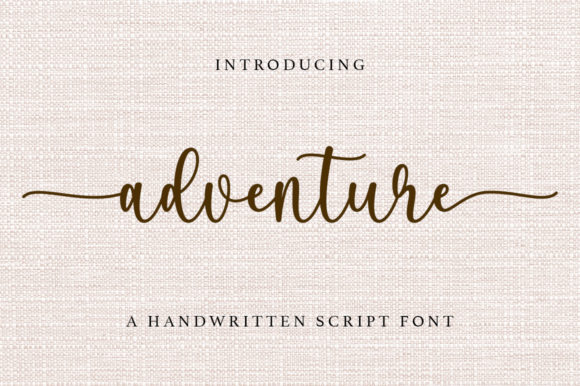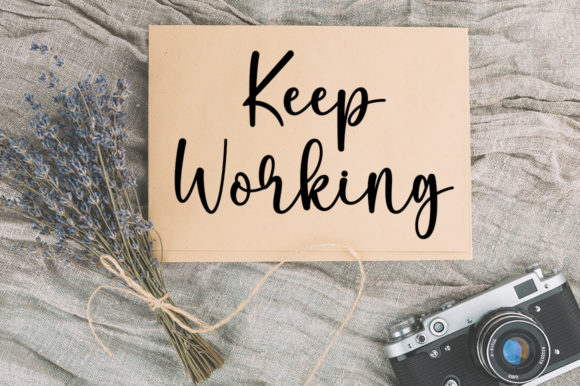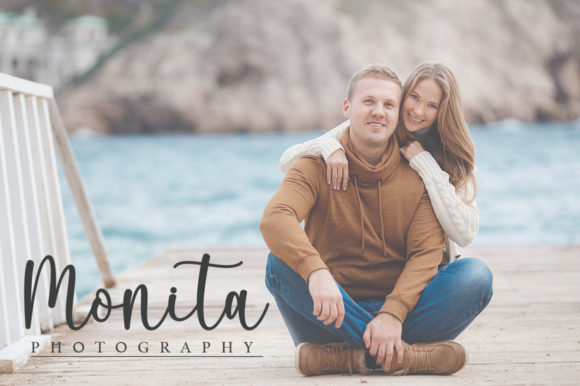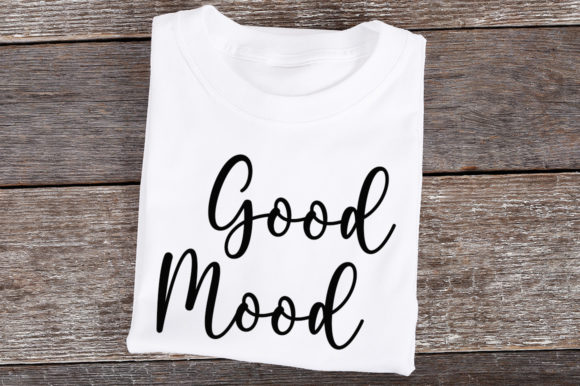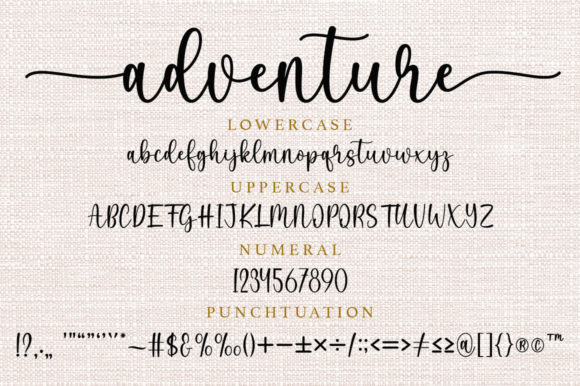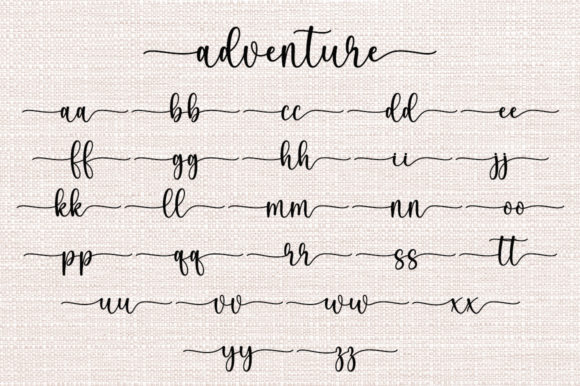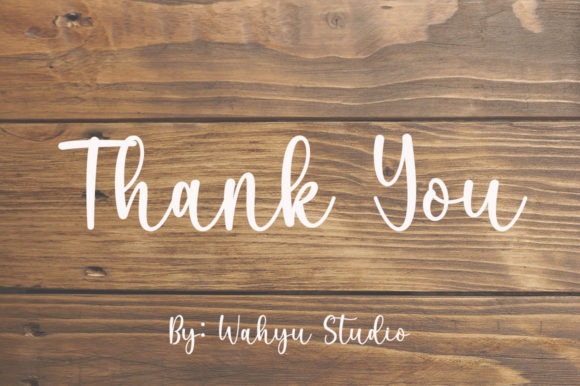
Adventure Font
About Adventure Font
“Introducing ‘Adventure’, a flowing handwritten font that exudes an elegant touch, making it perfect for your favorite projects. This font is not just a tool for creating text; it’s a tool for expressing emotion, setting tone, and conveying a certain aesthetic.
‘Adventure’ is a font that flows like a river, seamlessly and beautifully. It’s smooth, it’s consistent, and it’s pleasing to the eye. This flow isn’t just about aesthetics; it also improves readability. The smooth transitions from one letter to the next make for easy reading, keeping your audience engaged and interested.
The elegance of ‘Adventure’ is one of its defining features. This isn’t a font that screams for attention; instead, it subtly draws the eye in. It’s sophisticated and classy, making it a great choice for projects that require a touch of finesse. Whether you’re designing a wedding invitation, a logo for a high-end brand, or a cover for a novel, ‘Adventure’ can add that touch of elegance you’re looking for.
But ‘Adventure’ isn’t just about looks; it’s also incredibly functional. It’s PUA encoded, which means you can access all of the glyphs and swashes with ease. PUA, or Private Use Areas, are special areas in the Unicode standard that allow vendors to include their own glyphs. This means you have a wide range of characters and styles at your disposal, allowing you to customize your text to fit your specific needs.
In conclusion, ‘Adventure’ is more than just a font. It’s a versatile tool that can enhance the beauty of your projects, convey the right emotions, and make your text more engaging and readable. With its flowing design, elegant touch, and PUA encoding, ‘Adventure’ is a font that can truly bring your projects to life.”